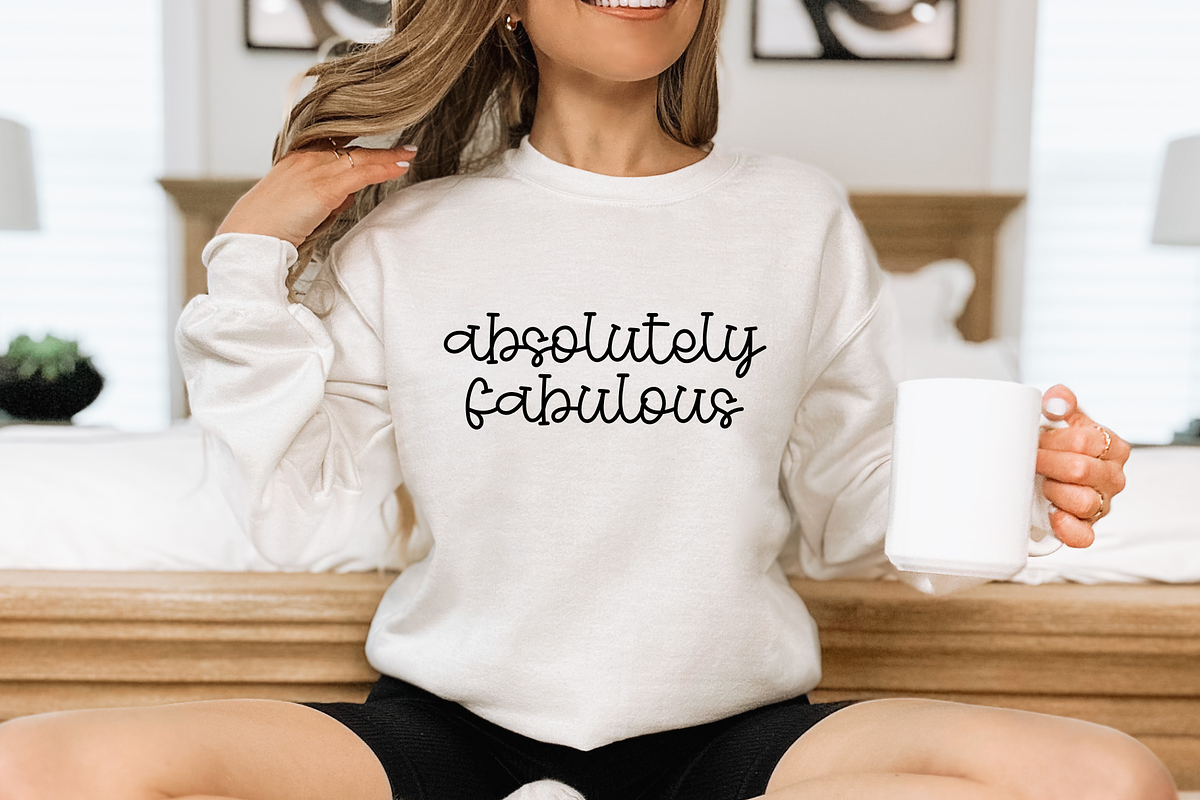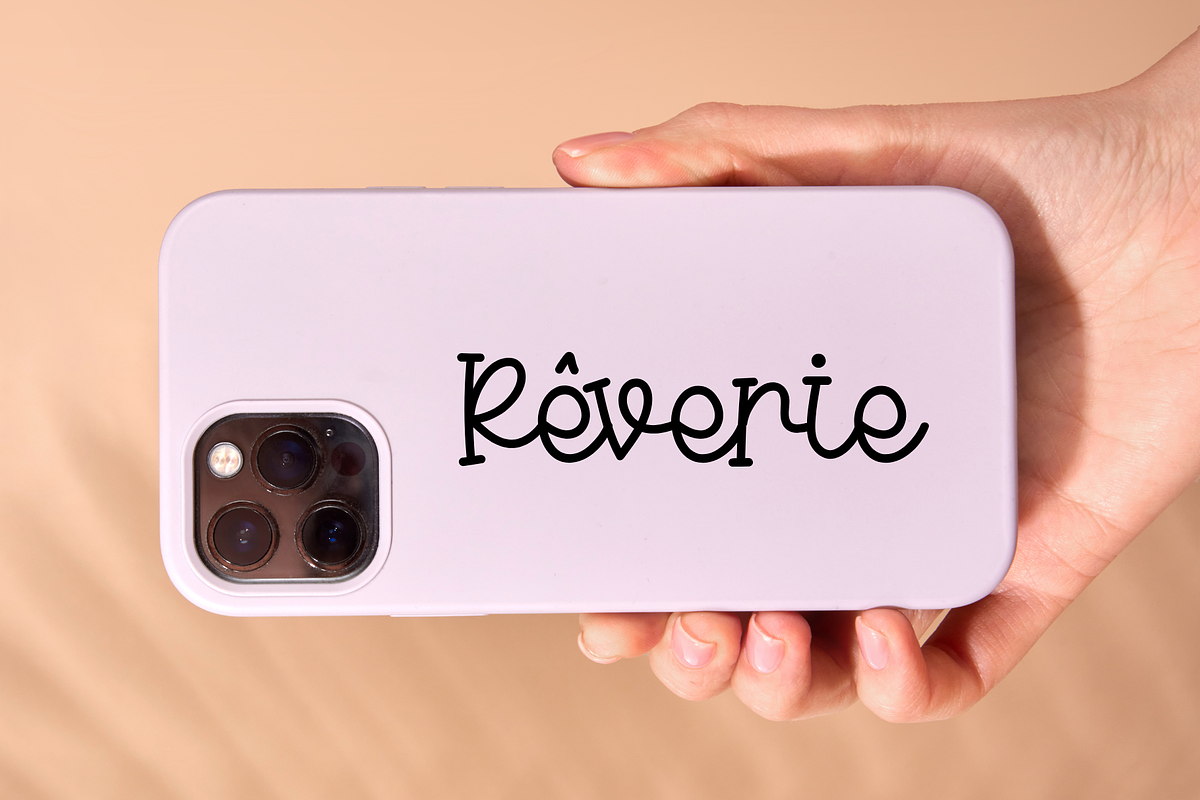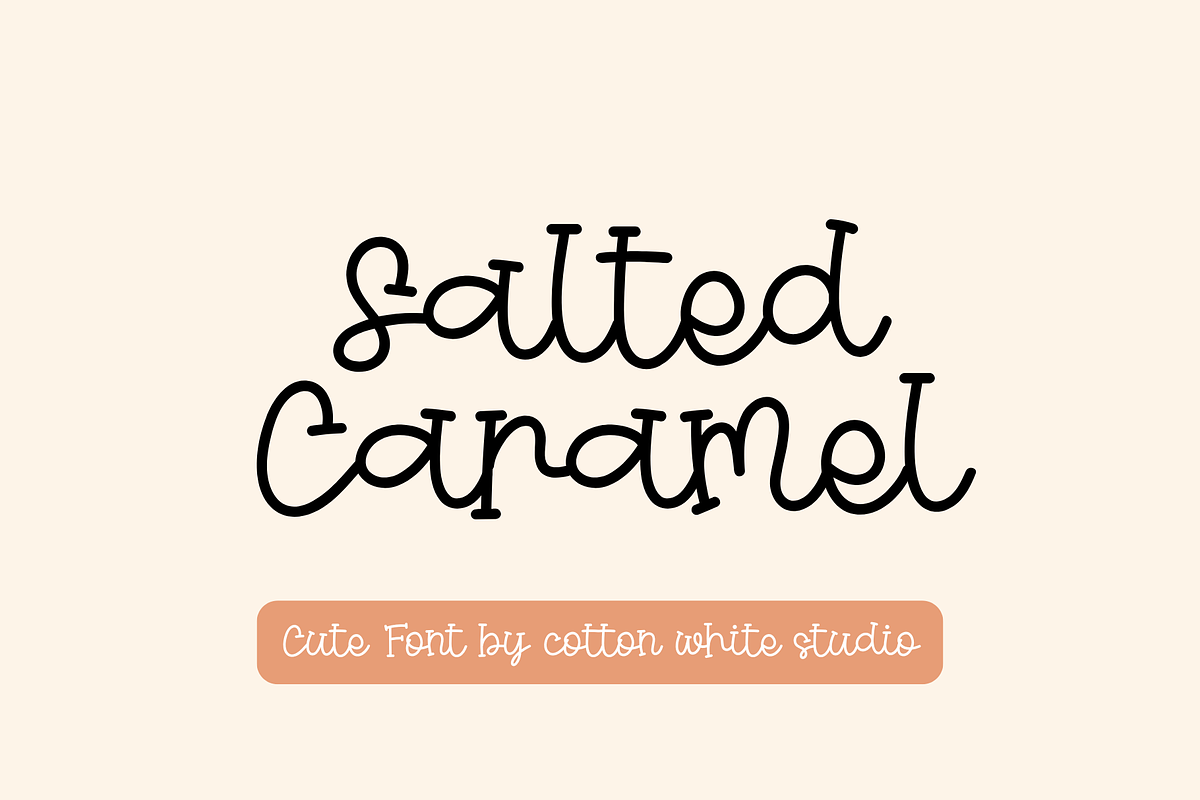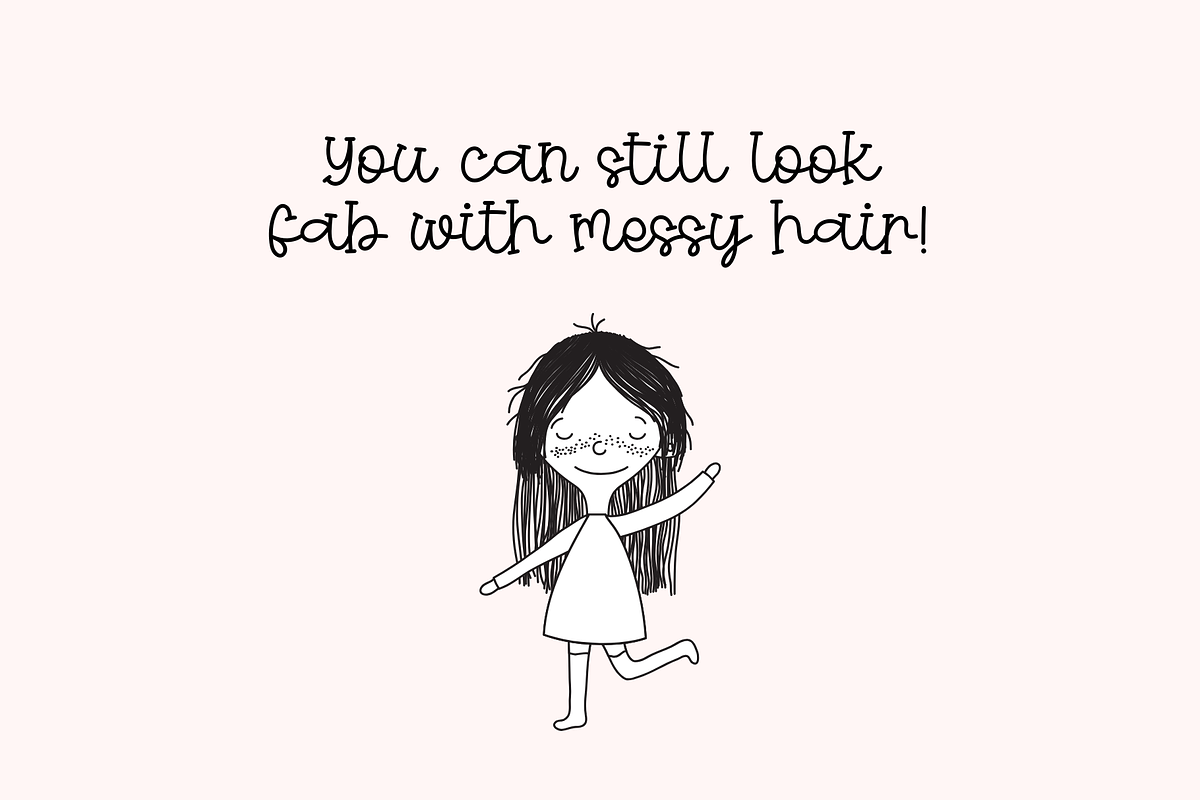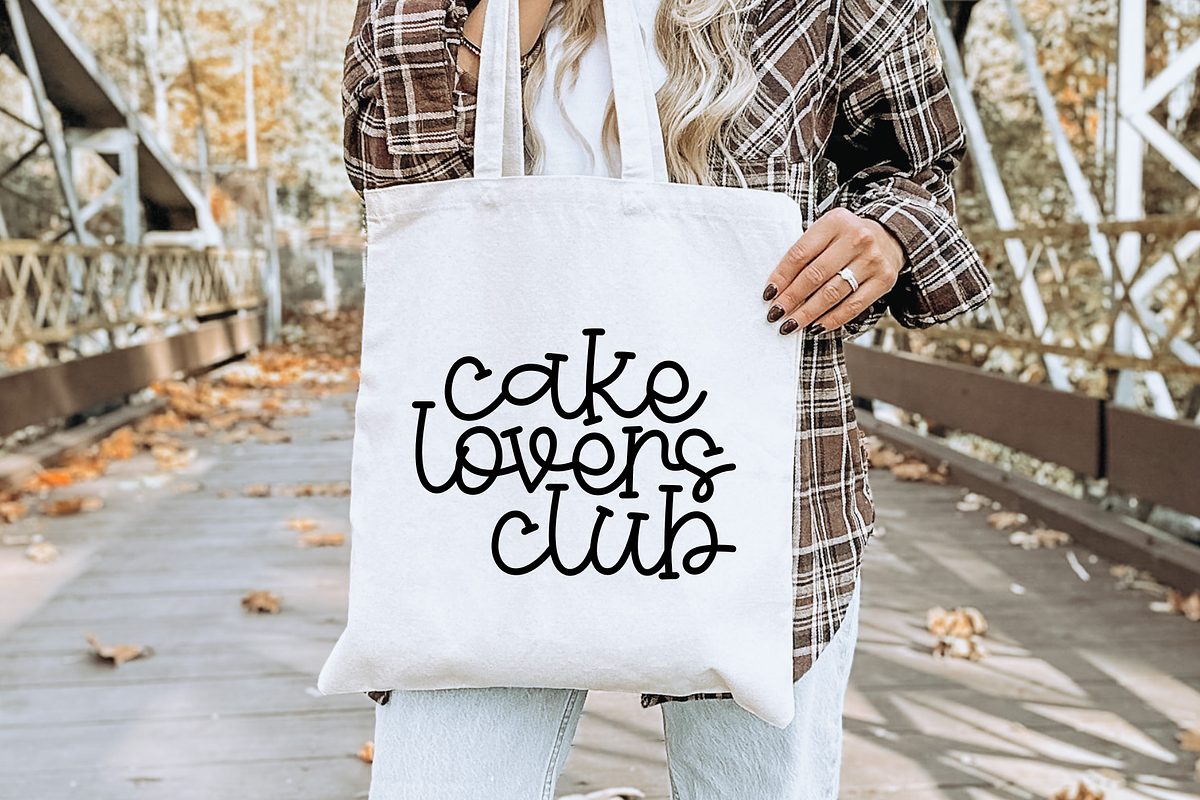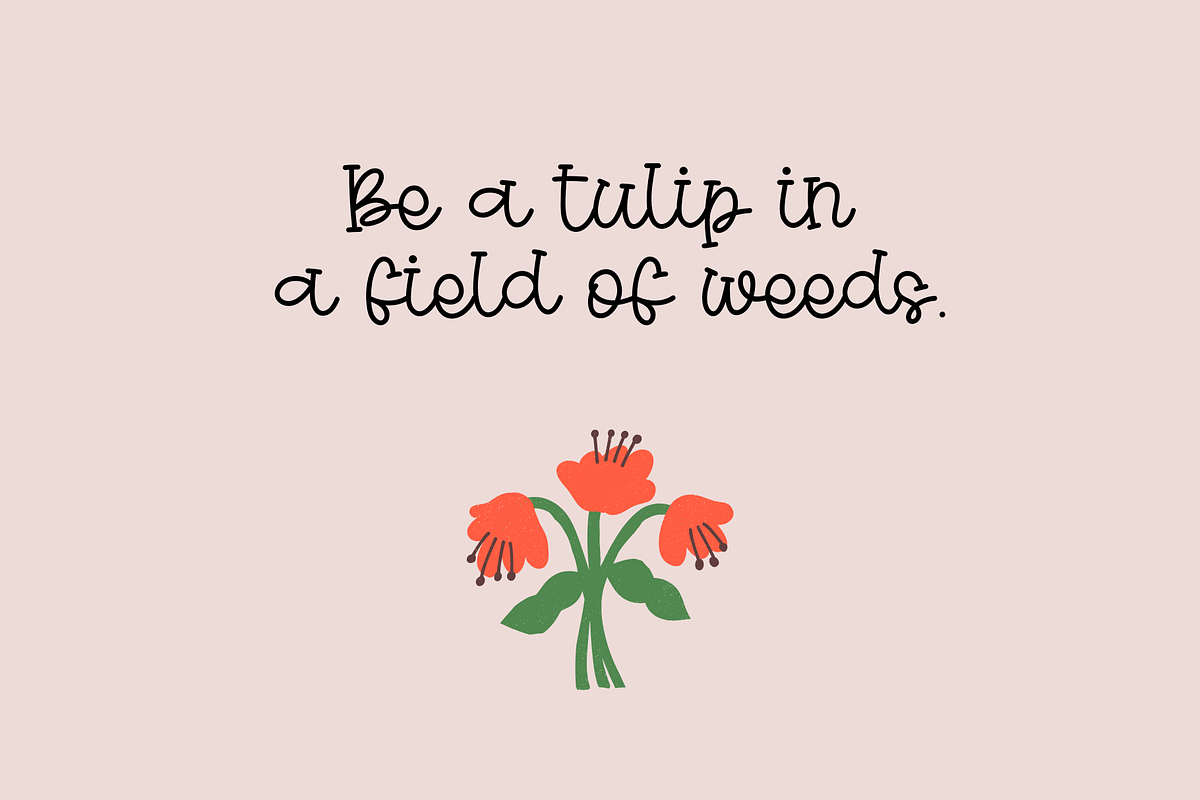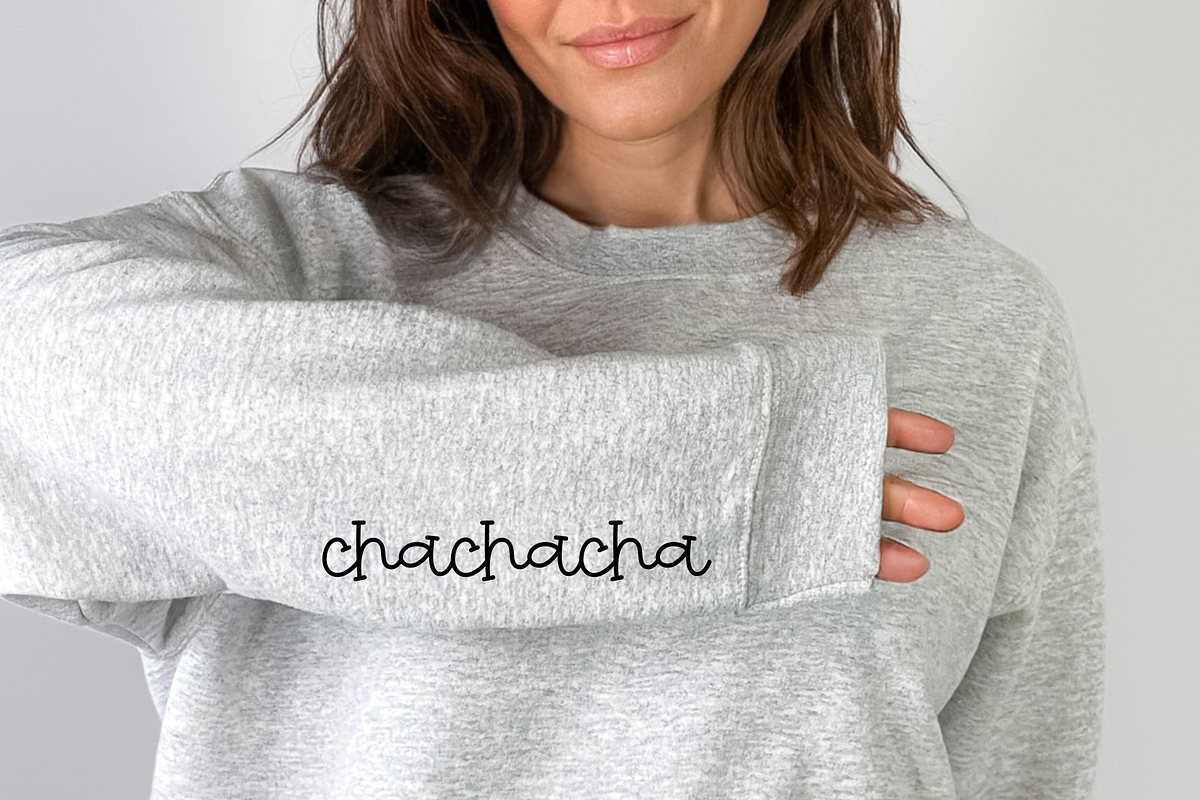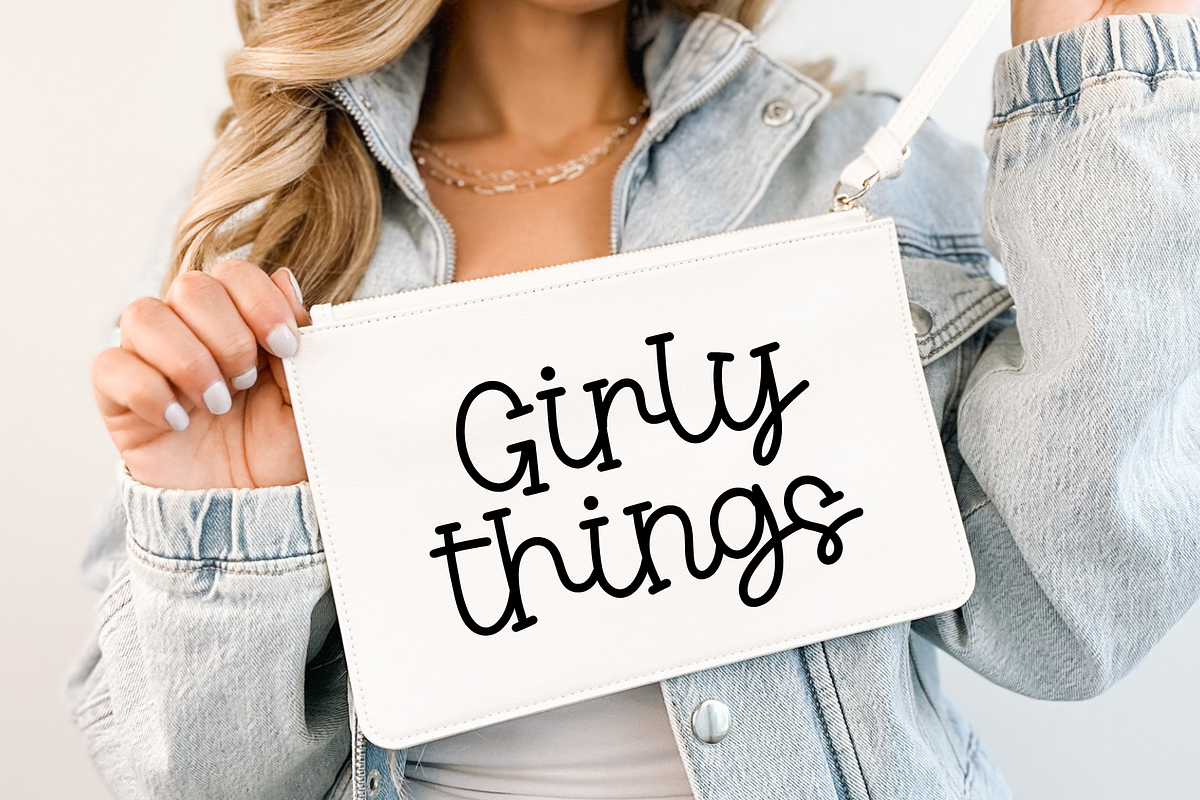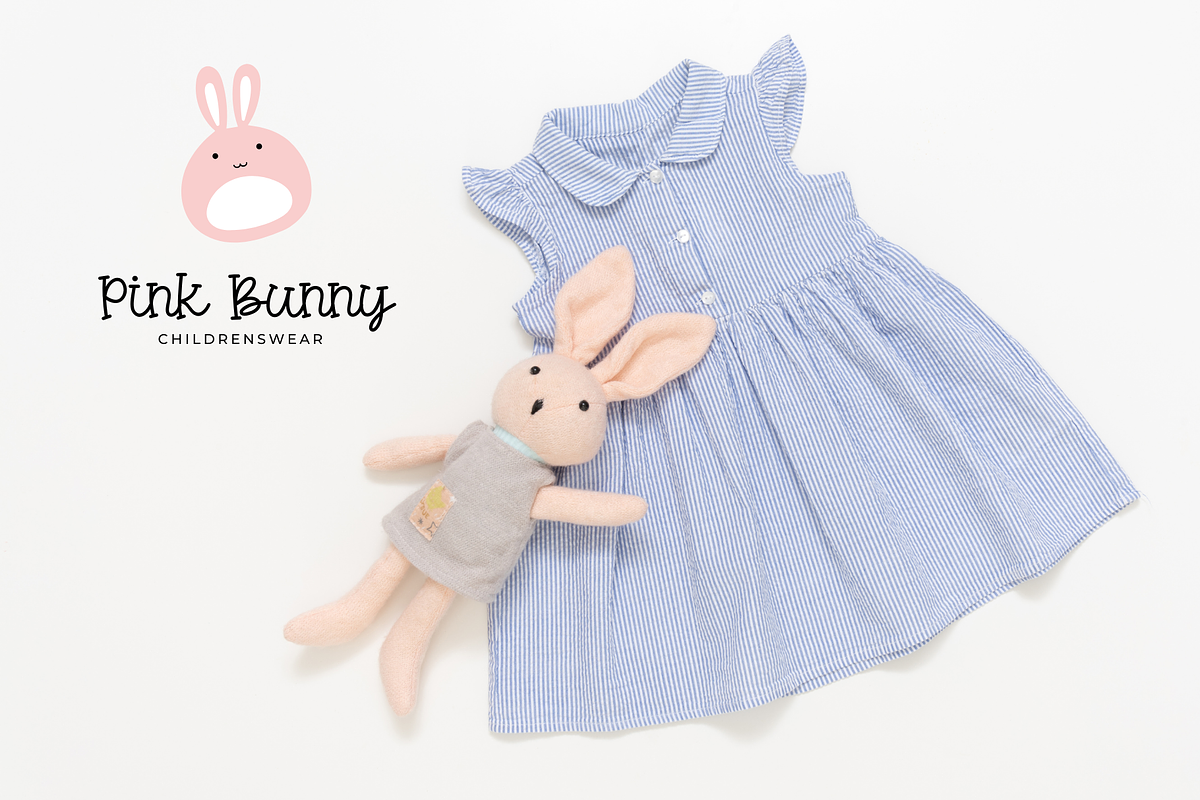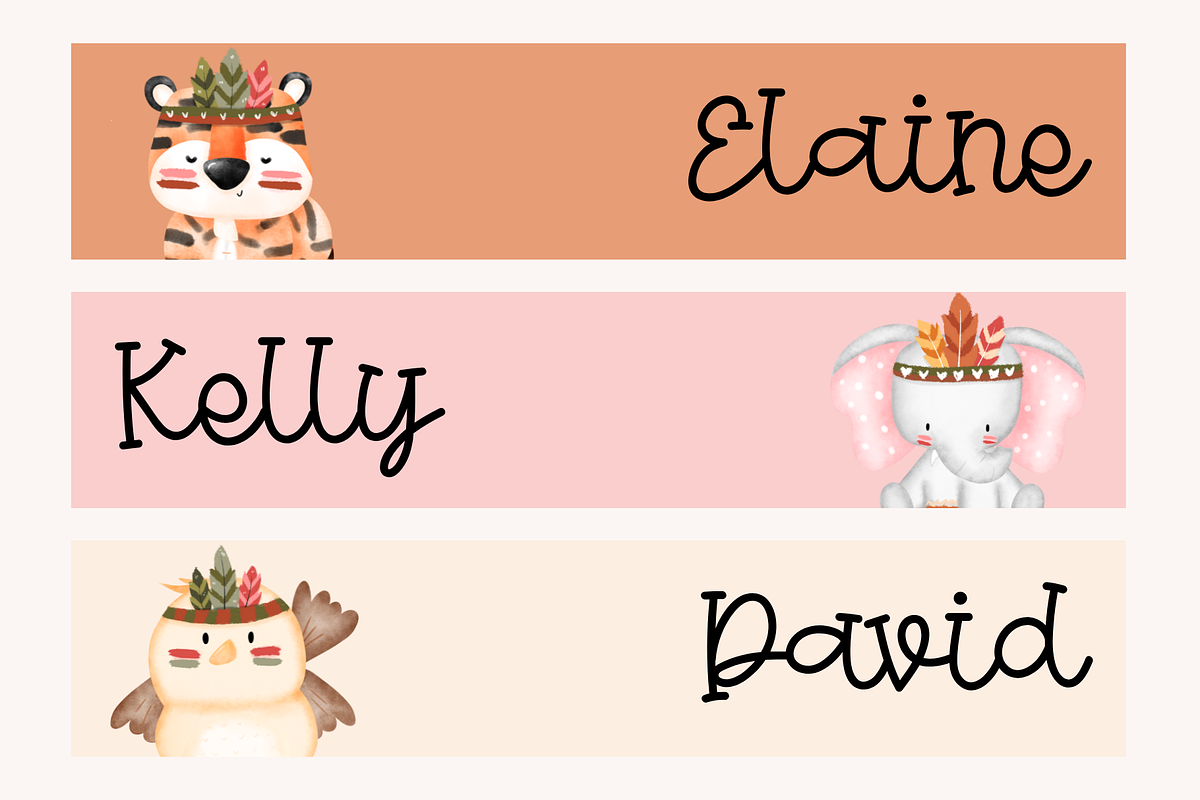
Salted Caramel Cute Font
A fun and whimsical font that adds a playful touch, making it ideal for social media, creative projects, invitations, posters, crafts, and much more!